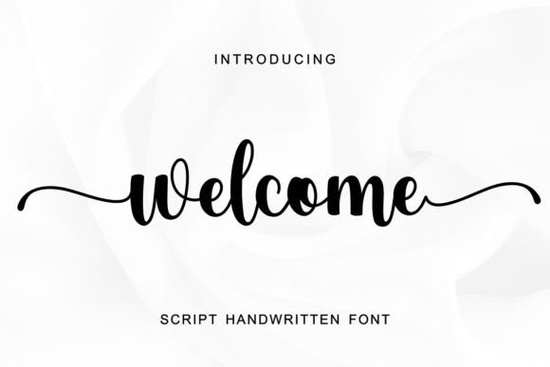
If you’re looking for a handwritten script font that feels personal, warm, and just right for seasonal projects, the Welcome Font might be exactly what your next craft needs. Whether you’re designing Easter cards, Thanksgiving banners, Christmas gift tags, or custom embroidery patterns, this font brings a gentle, human touch that machine-perfect typefaces often miss. The subtle wash tails on each letter give it movement like someone just picked up a brush and wrote it for you.
What kinds of projects does this font work best for?
The Welcome Font shines in any project where personality matters more than polish. Think:
- Cricut and Silhouette cut files especially for layered vinyl decals or greeting cards.
- Embroidery digitizing those flowing tails translate beautifully into stitched lettering.
- Print-on-demand products like mugs, totes, and holiday shirts where handwritten charm sells better than rigid fonts.
- Invitations and signage for seasonal events Easter brunches, Thanksgiving dinners, or cozy Christmas markets.
It’s not a font you’d use for body text or corporate reports. But if you’re making something meant to feel handmade, heartfelt, or festive? It’s perfect.
How does it compare to other script fonts on Creative Fabrica?
Script fonts vary widely in tone some are bouncy and playful, others elegant and formal. Welcome sits comfortably in the middle: friendly but not childish, stylish but not stiff.
If you’ve used Rainbow Font, you know how fun and energetic it feels great for kids’ parties or summer crafts. Welcome is quieter, more graceful. For something similarly sweet but with a different rhythm, check out Billy and Bob Font its uneven baseline gives it a quirky, hand-drawn energy.
Those who love ultra-cute styles might also enjoy Baby Dreams Font for nursery decor or baby showers. And if pastel aesthetics are your thing, Barbie Cute Font pairs well with glitter, bows, and dreamy themes. For milkshake stands, ice cream logos, or retro diner signs, Milkshake Font adds that extra dollop of whimsy.
But when you want warmth without gimmicks something that says “you’re welcome here” in both letter and spirit Welcome Font is the one to reach for.
Does it include special characters or multilingual support?
It includes standard Western European characters, numbers, punctuation, and basic symbols enough for most English-language crafting and design needs. If you’re working in languages that require extended diacritics (like Polish, Turkish, or Vietnamese), double-check the character map before committing. Most seasonal and craft-focused projects won’t need more than what’s included.
Any tips for pairing it with other fonts?
A handwritten script like Welcome works best when paired with a clean, simple sans-serif. Try fonts like Montserrat, Lato, or even Arial in small caps for contrast. Avoid pairing it with another script two flowing fonts together can look cluttered.
For holiday projects, try bold uppercase sans-serifs to anchor the design. Example: “WELCOME” in Welcome Font above “TO OUR HOME” in a sturdy all-caps font. Instant cozy vibe.
- Test kerning handwritten scripts sometimes need manual spacing adjustments between letters.
- Scale wisely very small sizes may lose the delicate tail details; keep it above 24pt for best results.
- Layer with textures pair it with watercolor backgrounds, kraft paper, or linen overlays to enhance the handmade feel.
Whether you’re running a small shop, decorating for the holidays, or just making something sweet for a friend, the Welcome Font adds sincerity without effort. Sometimes, that’s exactly what a project needs.